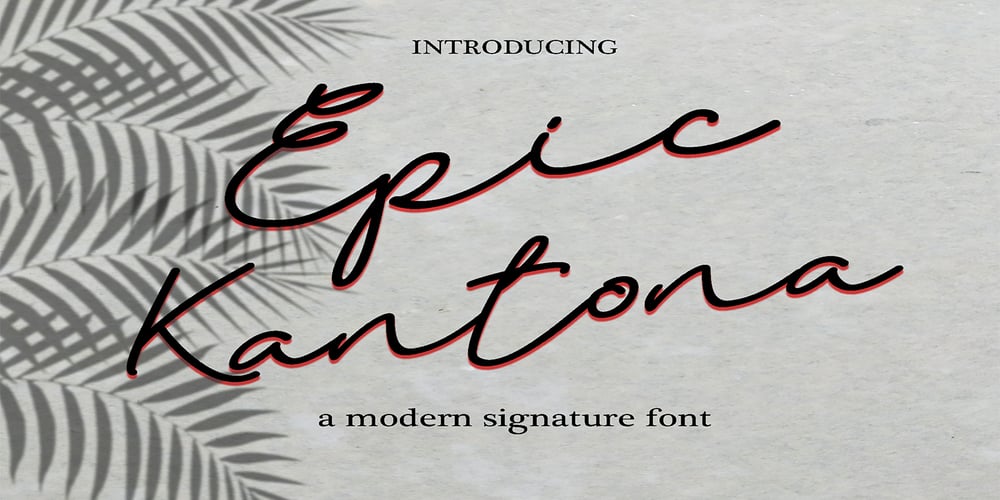
Epic Kantona Font Family was designed by Hajid Hikmatiyar and published by Hikhcreative. Epic Kantona contains 1 styles and family package options. Epic Kantona Signature is an elegant and a smooth casual monoline signature stylish script. It is perfect for branding projects, logos, wedding designs, social media posts, advertisements, product packaging, product designs, labels, photography, watermarks, invitations, stationery and any projects that need handwriting taste. Epic Kantona works both on Mac & PC. Simple installations, Alternates & Ligature and Multi-lingual Support. Accessible in the Adobe Illustrator, Adobe Photoshop, Adobe InDesign, CorelDraw. This type requires the support of OTF font such as AI, Photoshop, Affinity, Corel and so on. Follow our behance for updates : https://www.behance.net/hikhstudio